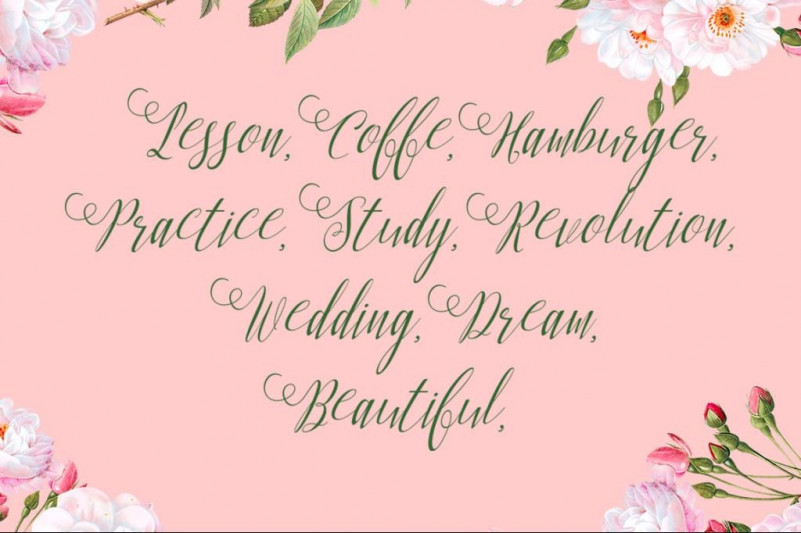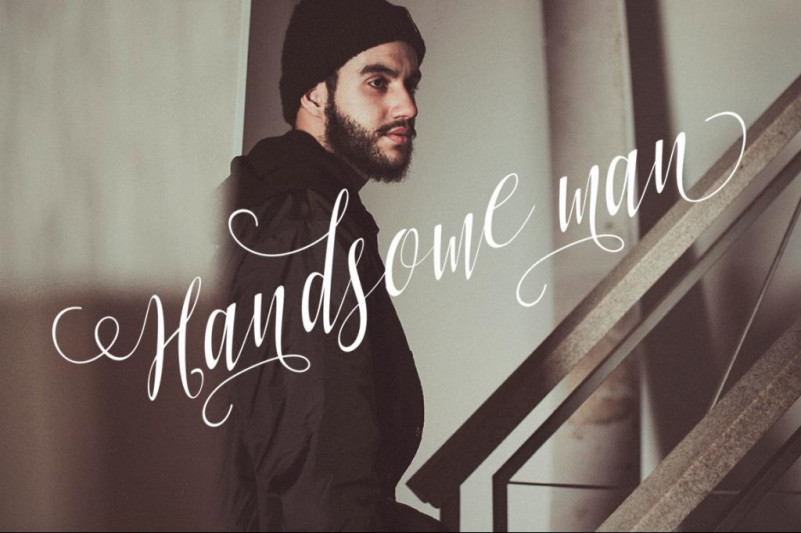
Mahartha Calligraphy Font
Mahartha Calligraphy Font is an elegant script font with a contemporary atmosphere and impeccable form, inspired by timeless classic calligraphy. This font is PUA encoded which means you can access all glyphs and swashes with ease!